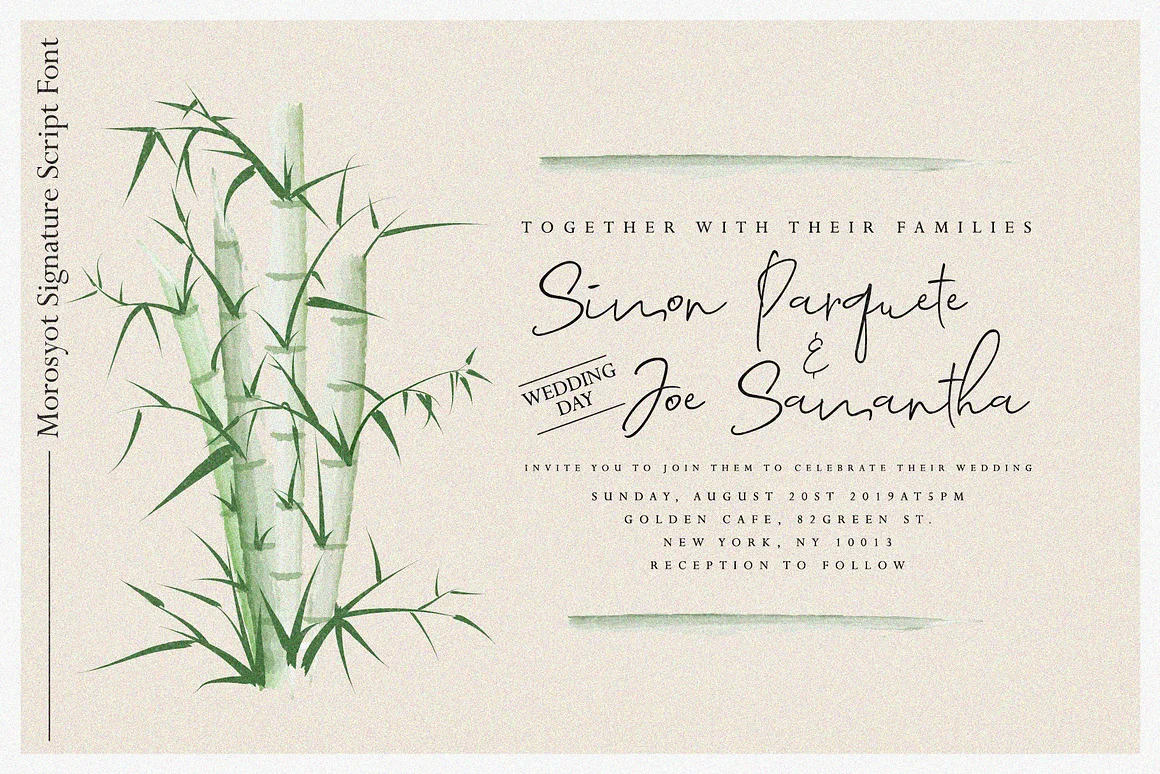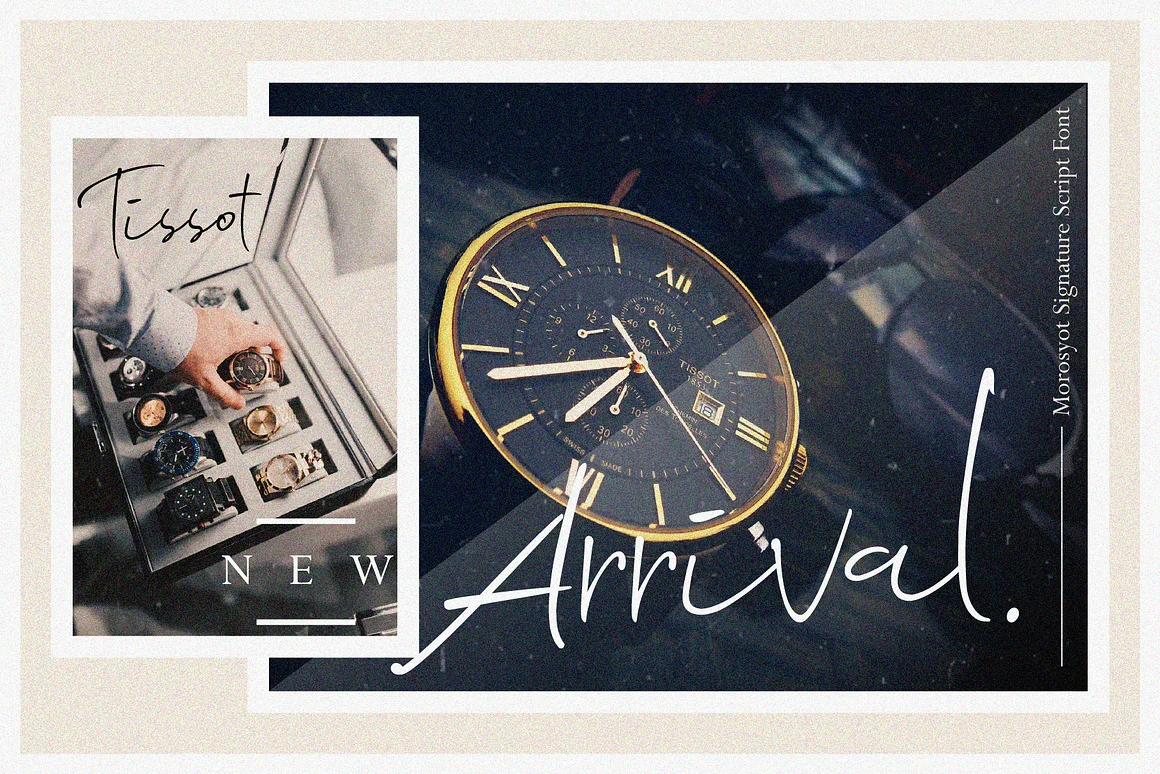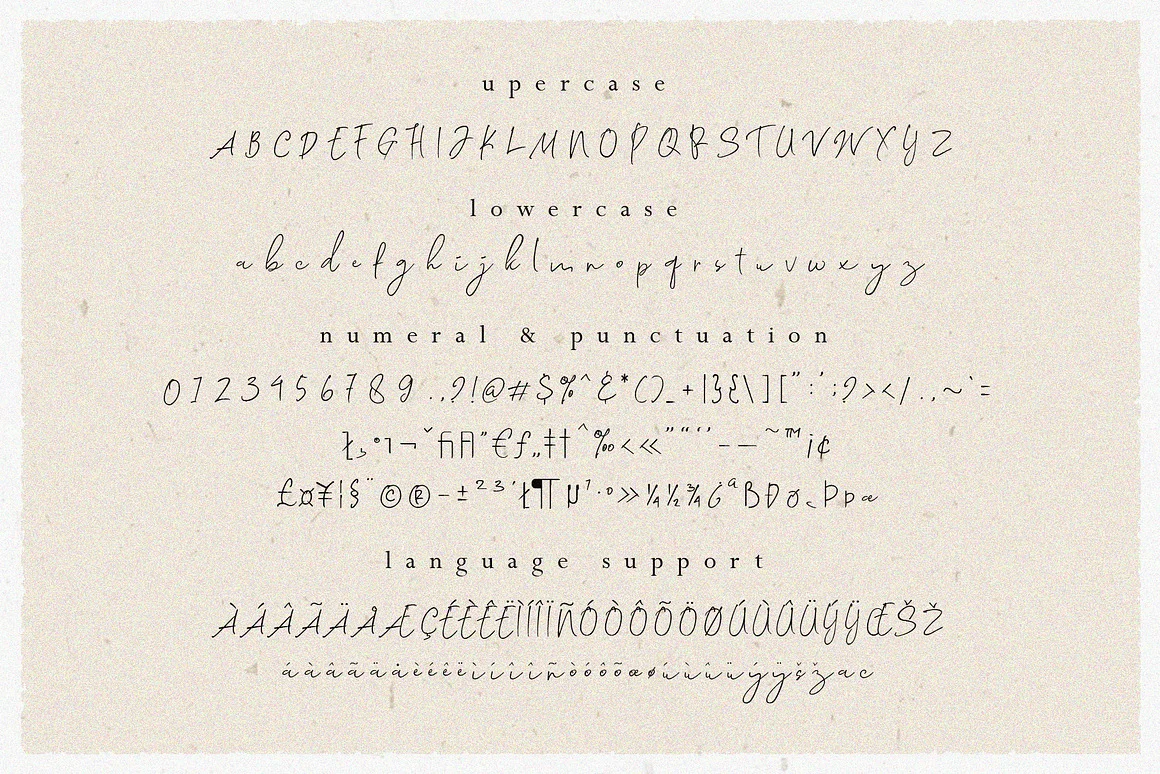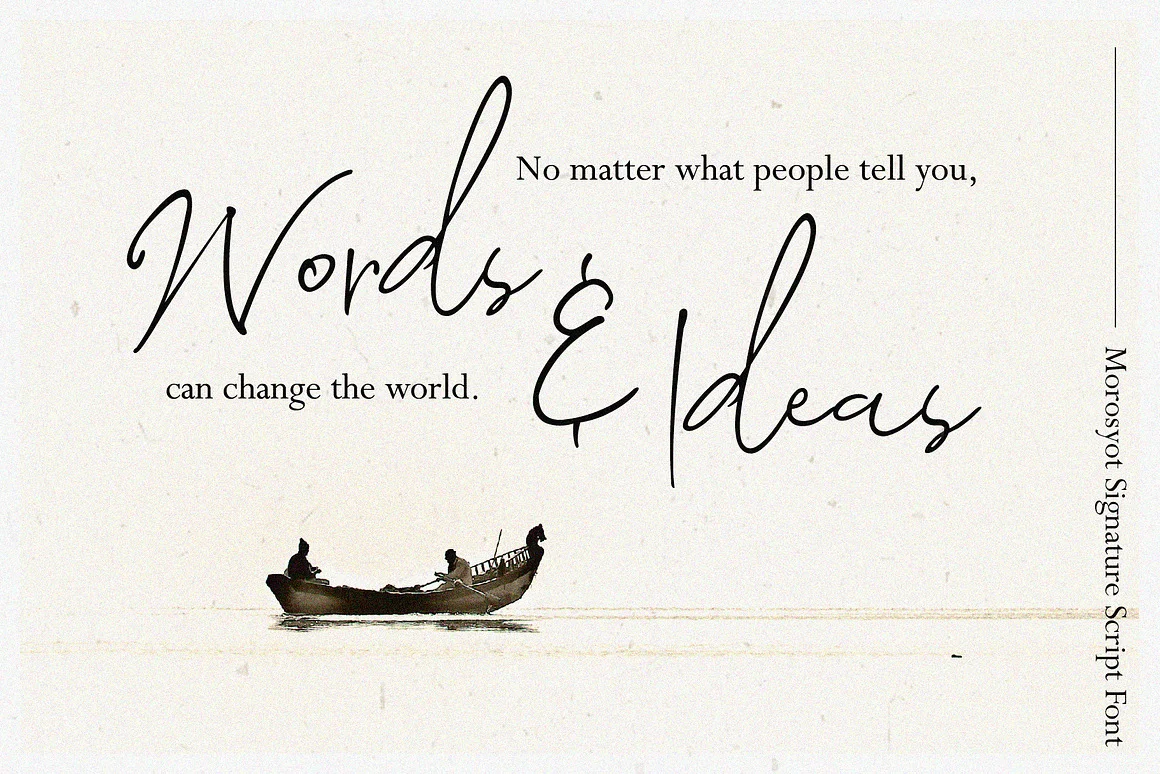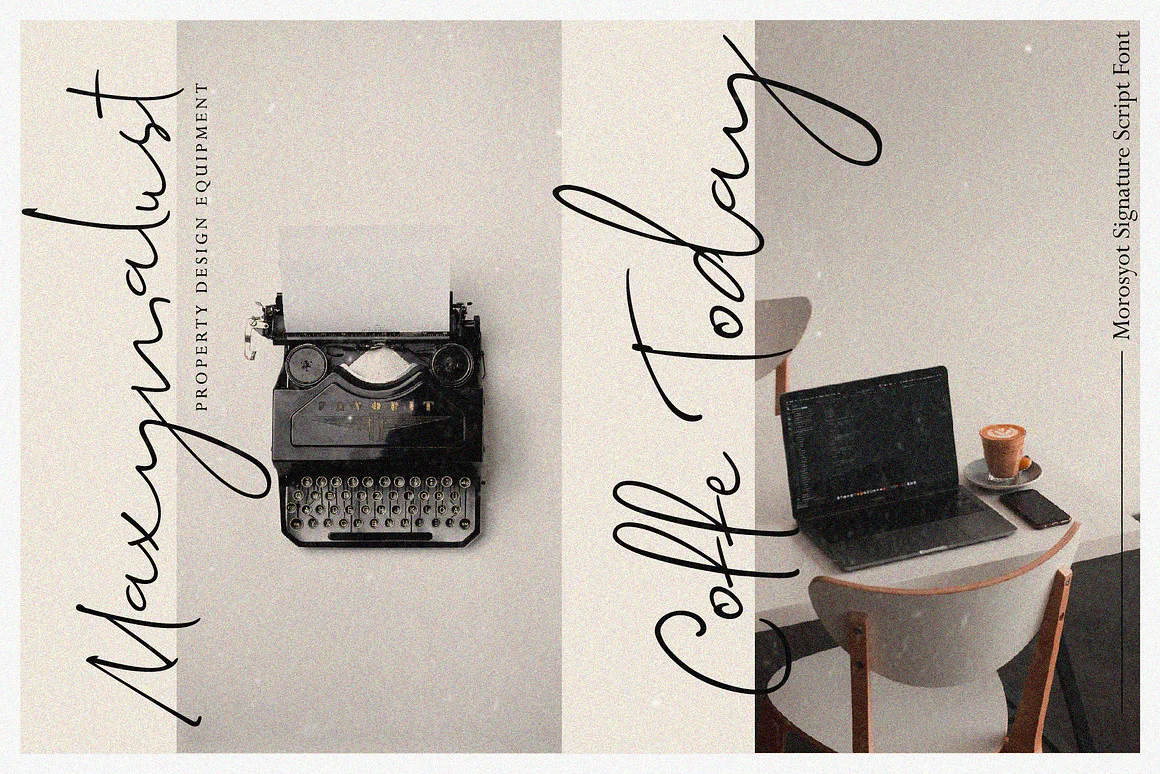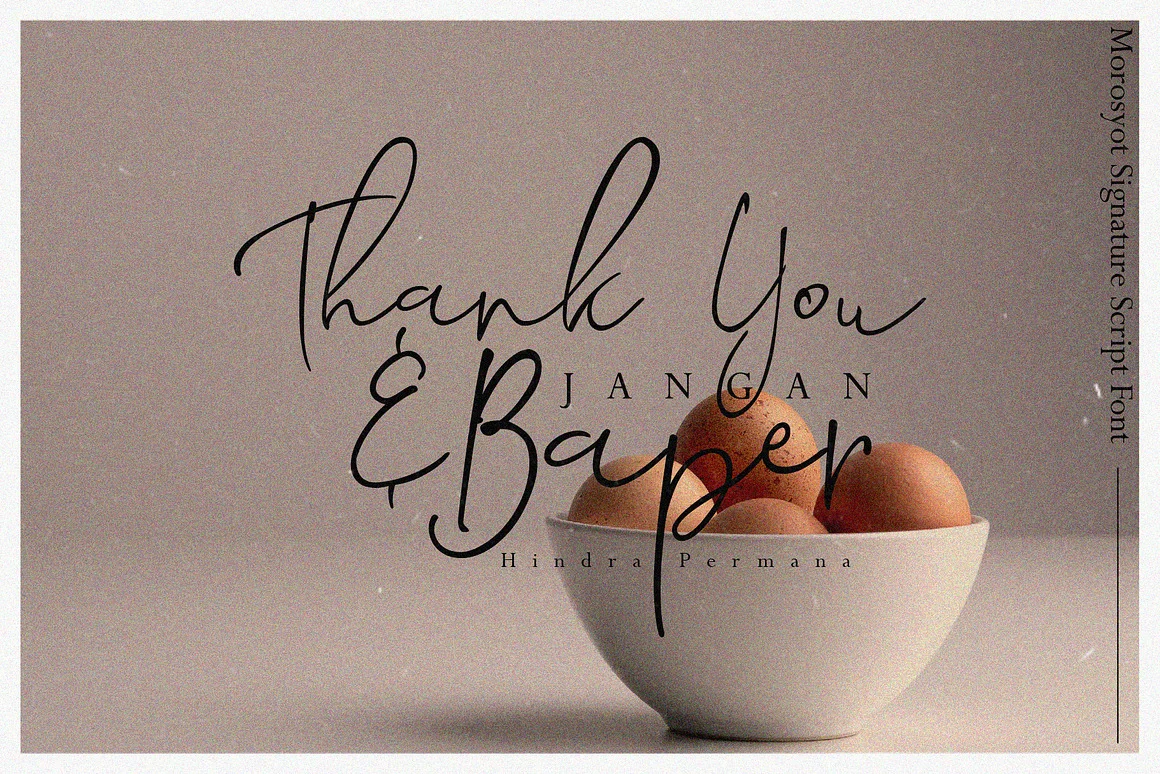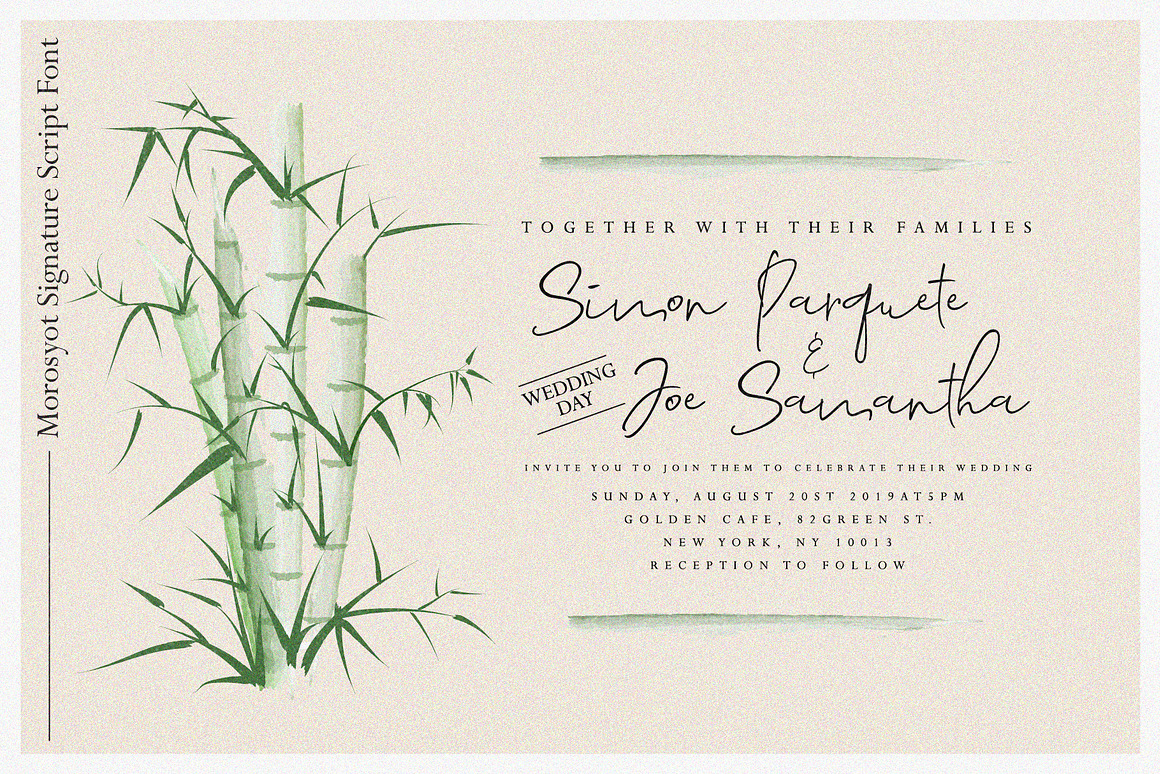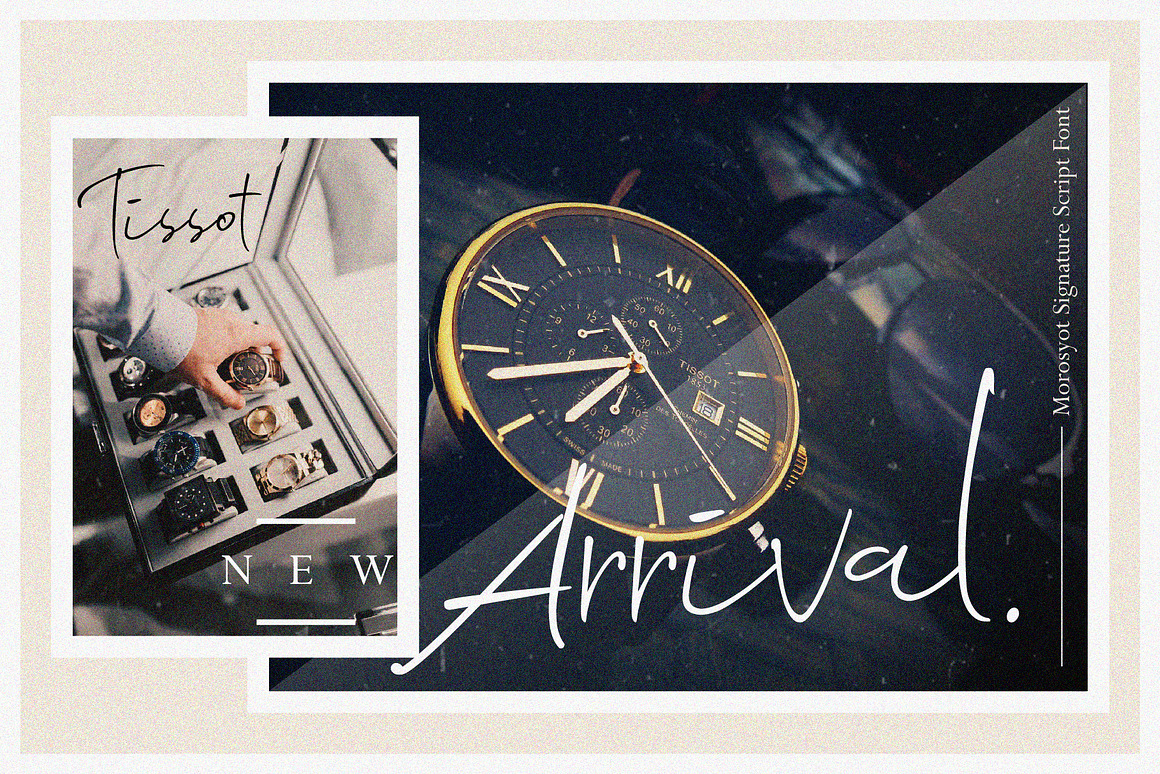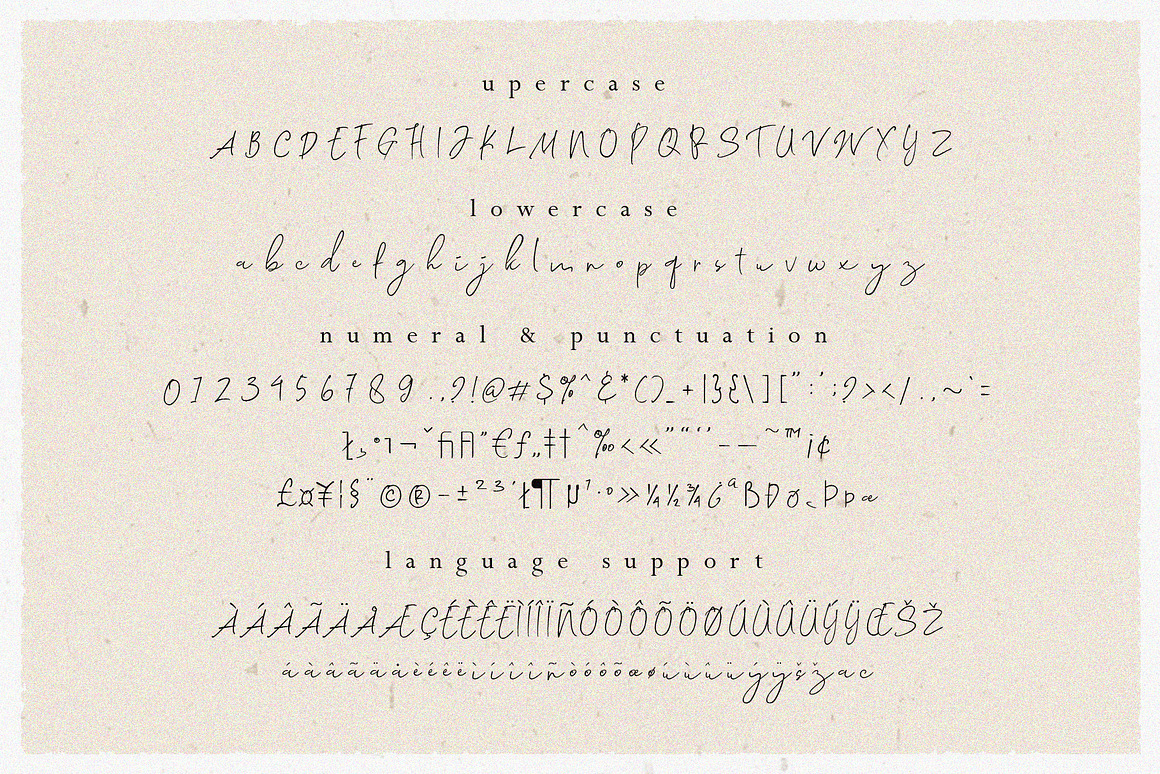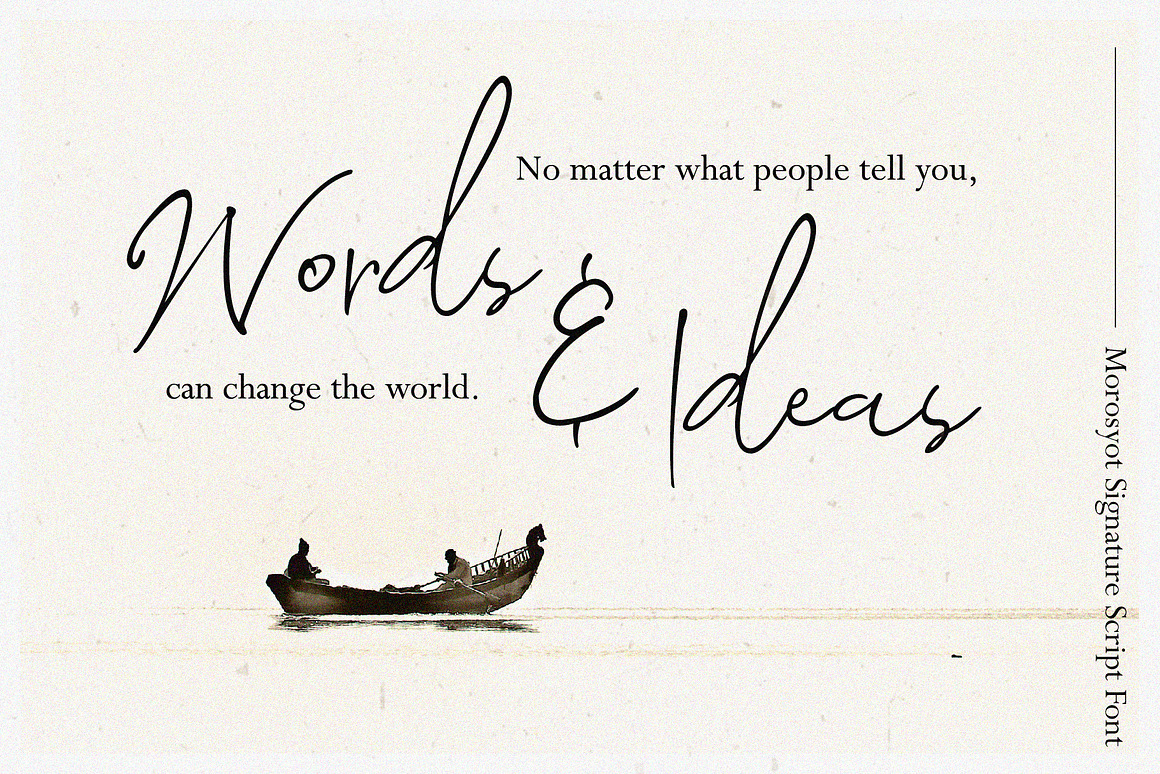
Morosyot Signature Script Font
Morosyot Signature Script Font is ideal for personal branding, wedding invitations, photography watermarks, luxury product packaging, and elegant social media graphics. Its flowing, handwritten style adds a personal and sophisticated touch to any project.
What makes Morosyot Signature Script Font exciting is its graceful strokes and natural handwriting feel, which bring authenticity and charm to designs. It perfectly balances style and legibility, making it suitable for both creative and professional uses.
The Morosyot Signature Script Font family includes variations such as Regular, Bold Script, and Swash Alternates, providing flexibility for different design needs. These options allow you to add extra flair or keep things clean and minimal depending on the project.
For designers seeking a beautiful, handwritten look with timeless elegance, Morosyot Signature Script Font is a must-have addition to any creative collection.